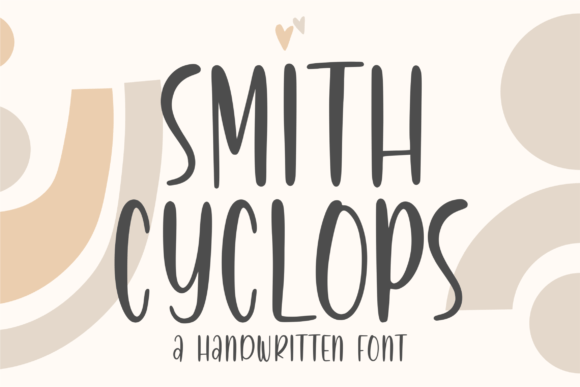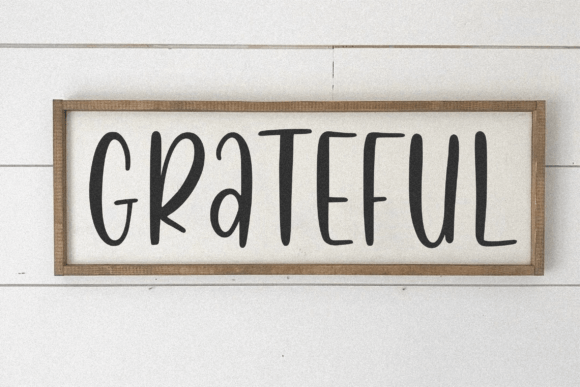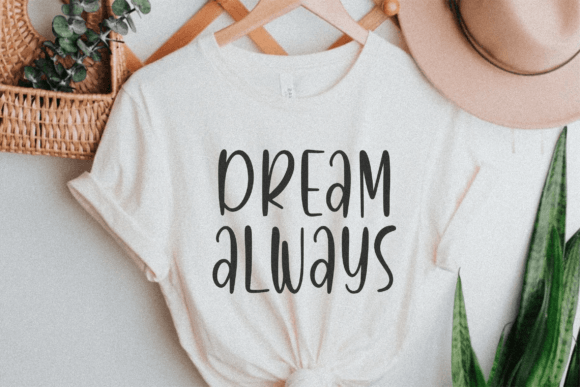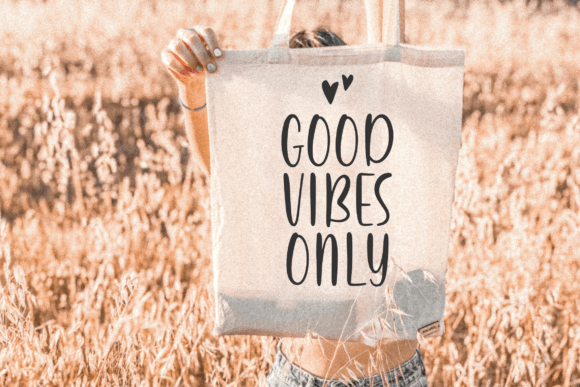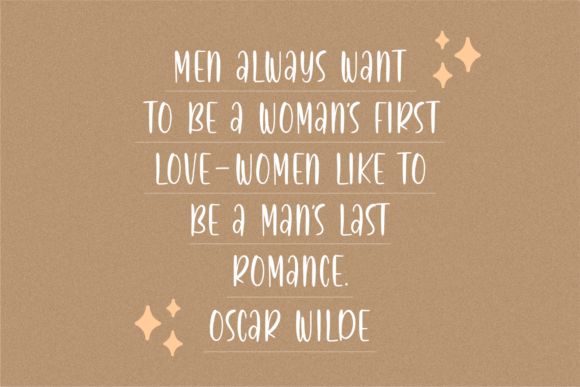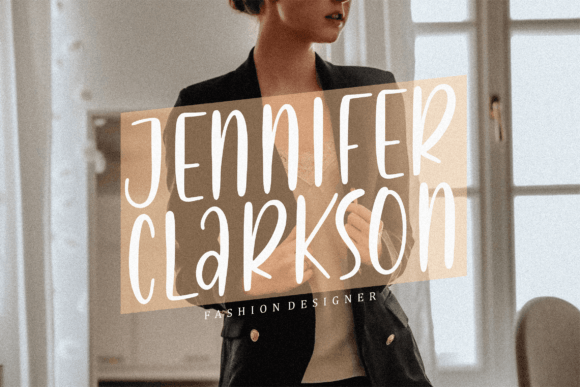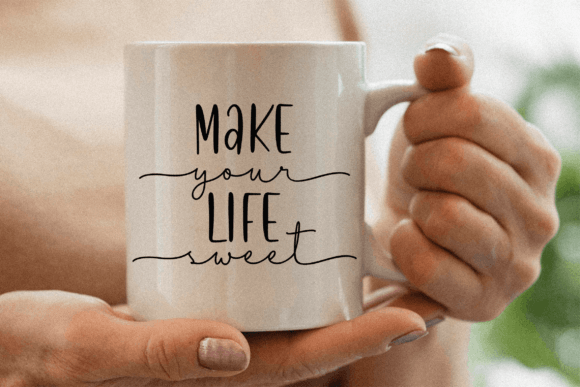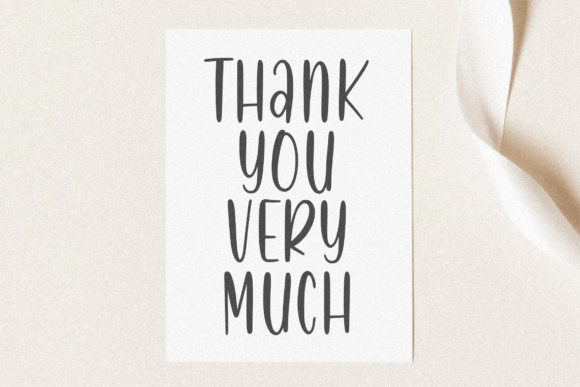
About Smith Cyclops Font
**Smith Cyclops** is a handwritten font designed to add a unique and personal touch to your creative projects. Its distinctive style and handcrafted appearance make it a versatile choice for a variety of design applications. Whether you’re working on product packaging, branding projects, magazines, social media graphics, wedding materials, or any other creative endeavor, Smith Cyclops is a font that can elevate your designs and help you express your message effectively.
One of the key features of Smith Cyclops is its handcrafted and organic look. The font’s irregular letterforms and natural strokes create an authentic and genuine feel, adding a touch of warmth and personality to your text. This handcrafted quality makes Smith Cyclops particularly suitable for projects that aim to convey a sense of craftsmanship, individuality, and creativity.
Smith Cyclops’s versatility shines in various design contexts. In product packaging, the font can enhance the visual appeal of labels, tags, and boxes, giving your products a unique and artisanal feel. For branding projects, Smith Cyclops can add a personal and handmade touch to logos, business cards, and promotional materials, making your brand more memorable and relatable to your audience.
In magazines and editorial layouts, Smith Cyclops can be used for headlines, pull quotes, or feature articles, adding a touch of creativity and character to the overall design. Its playful and informal style can capture the reader’s attention and create a visually engaging reading experience.
For social media graphics, Smith Cyclops can help your posts stand out with its handmade charm. Whether you’re creating Instagram quotes, Facebook banners, or Twitter posts, the font’s friendly and approachable vibe can enhance your social media presence, making your content more shareable and relatable.
In wedding materials such as invitations, place cards, or menus, Smith Cyclops can infuse a sense of intimacy and personal connection. Its handwritten style adds a romantic and heartfelt touch, setting the tone for a warm and memorable celebration.
In summary, Smith Cyclops is a versatile handwritten font that can enhance a wide range of design projects. Its handcrafted appearance, combined with its adaptability, makes it a valuable asset for designers looking to add a personal and unique flair to their creations. Whether you’re expressing words above a background, creating wedding invitations, or designing social media posts, Smith Cyclops can help you achieve a distinct and authentic look for your projects.